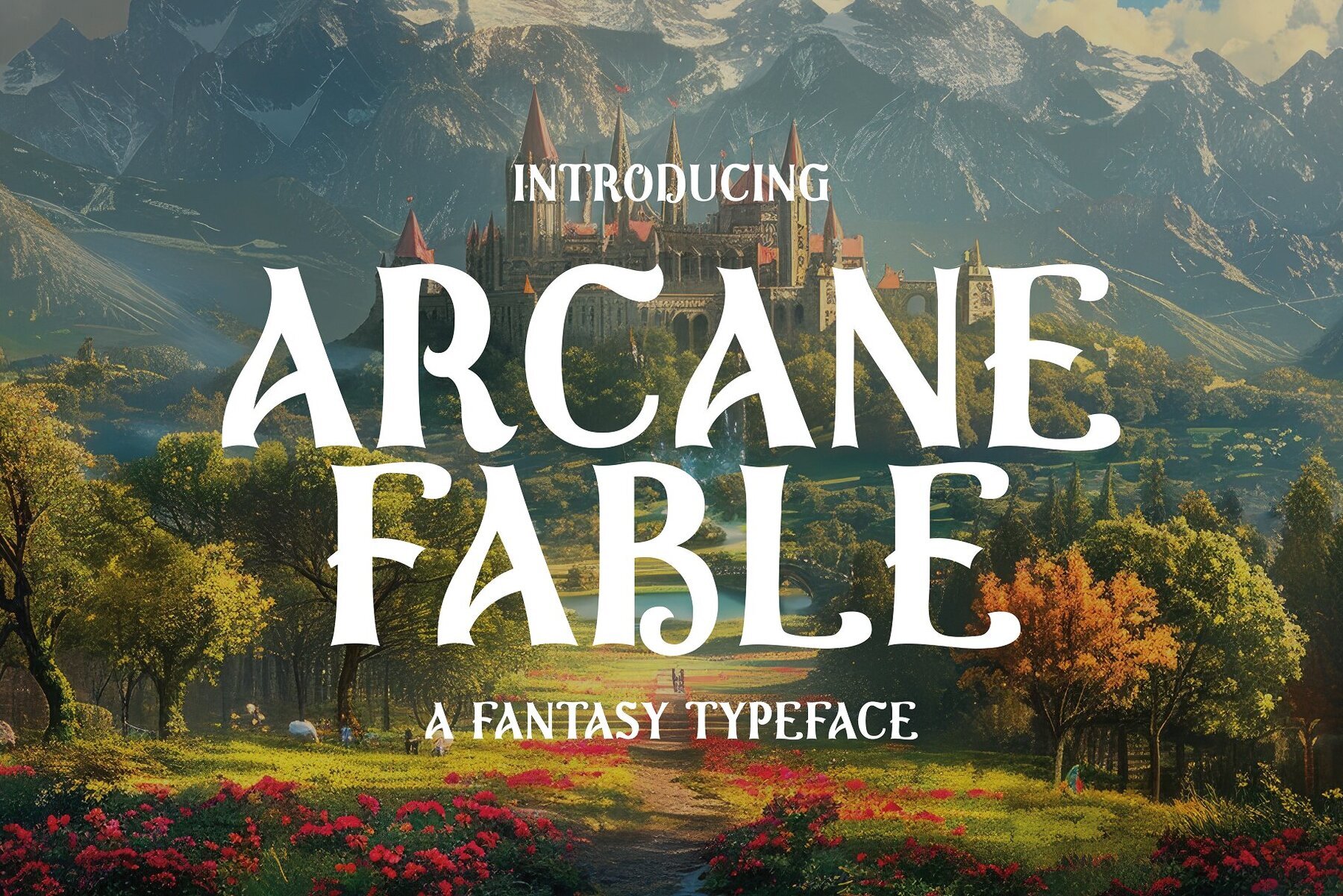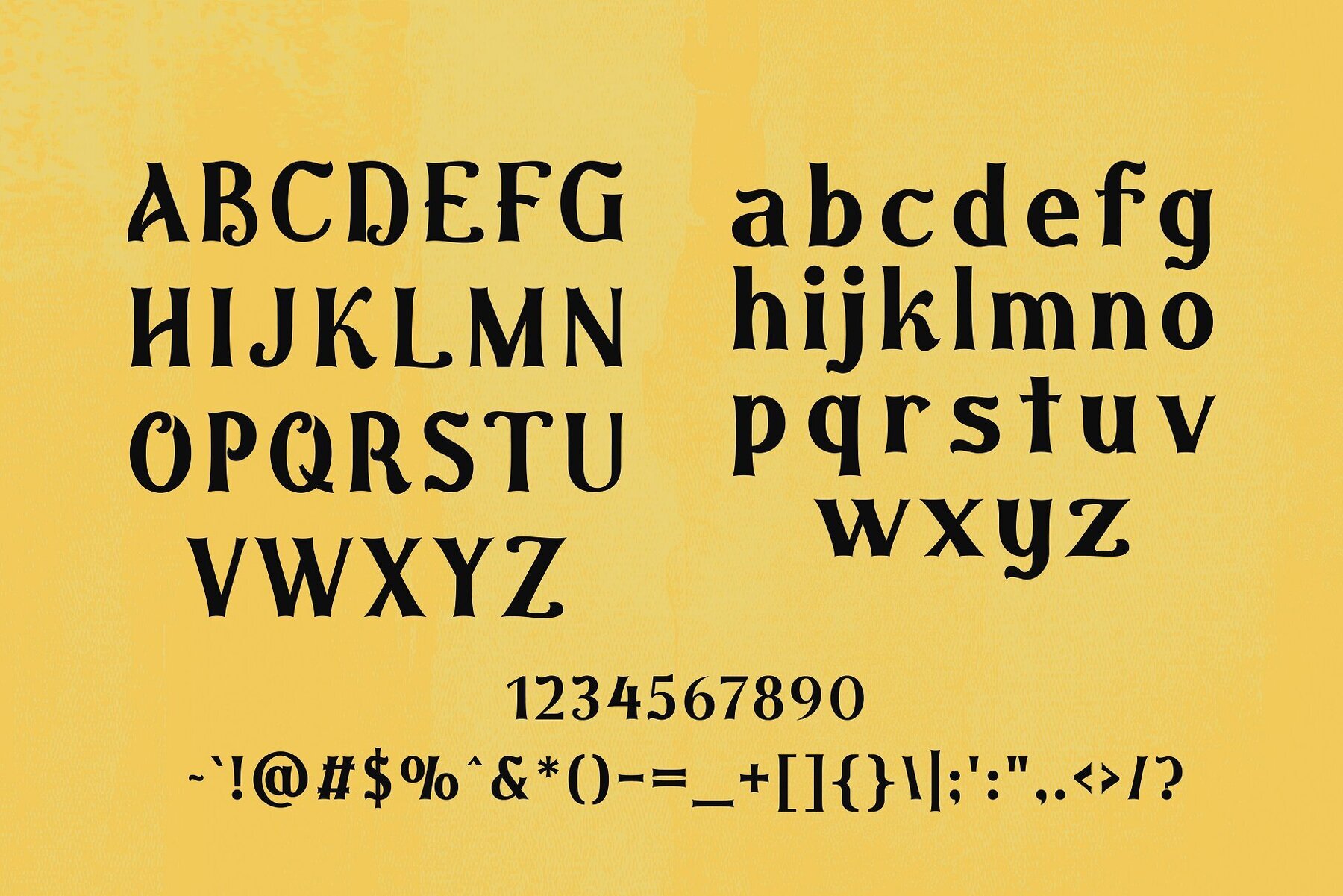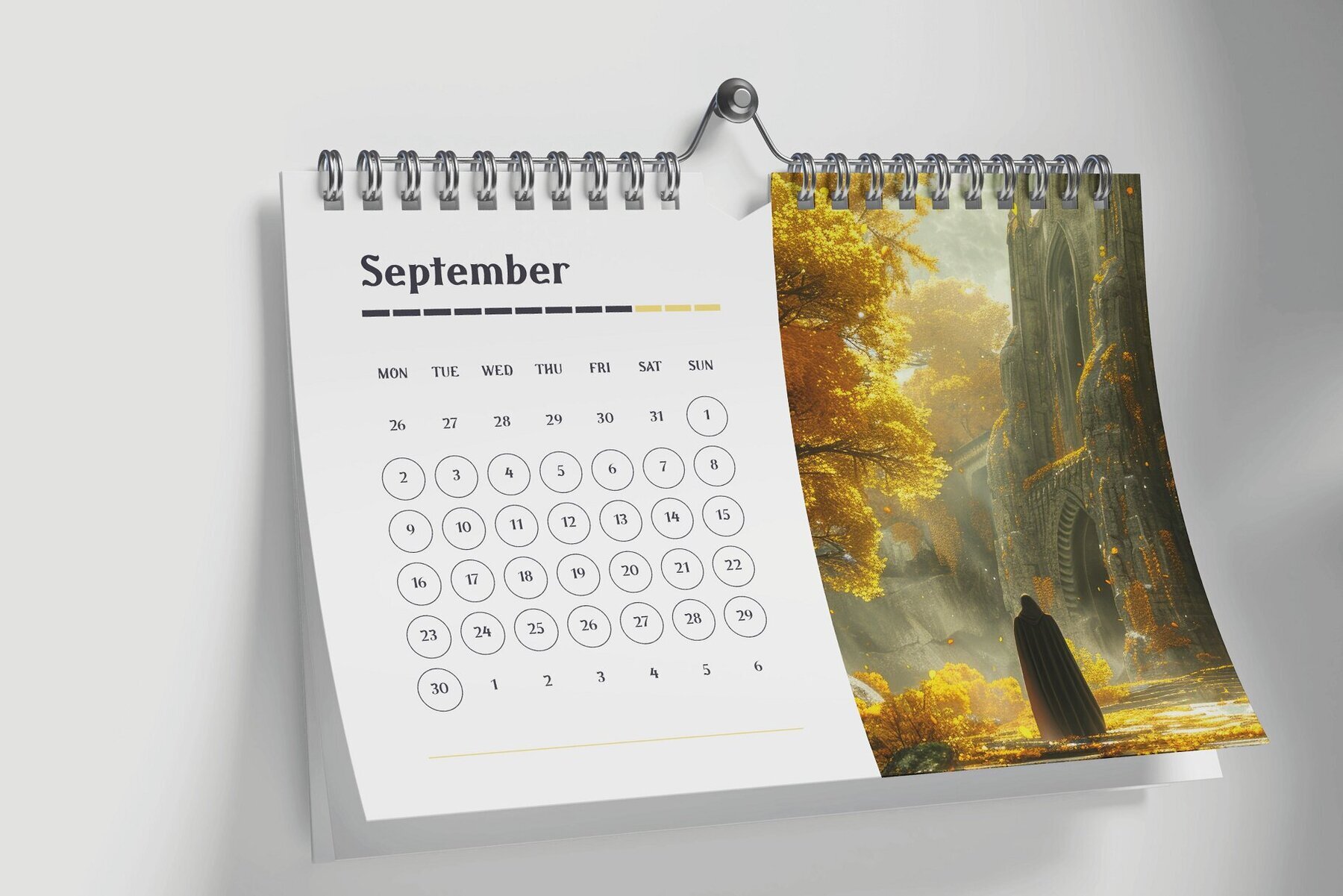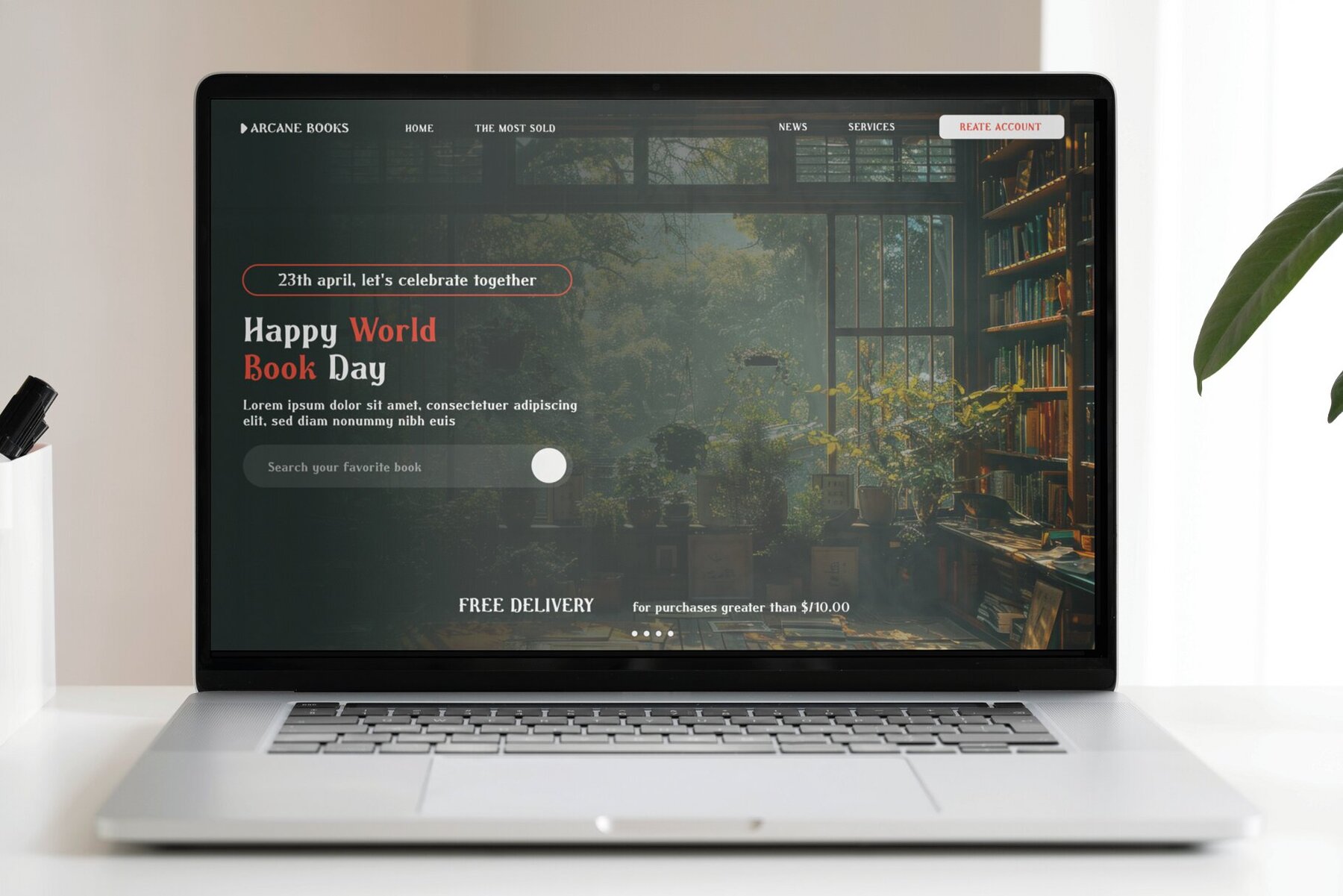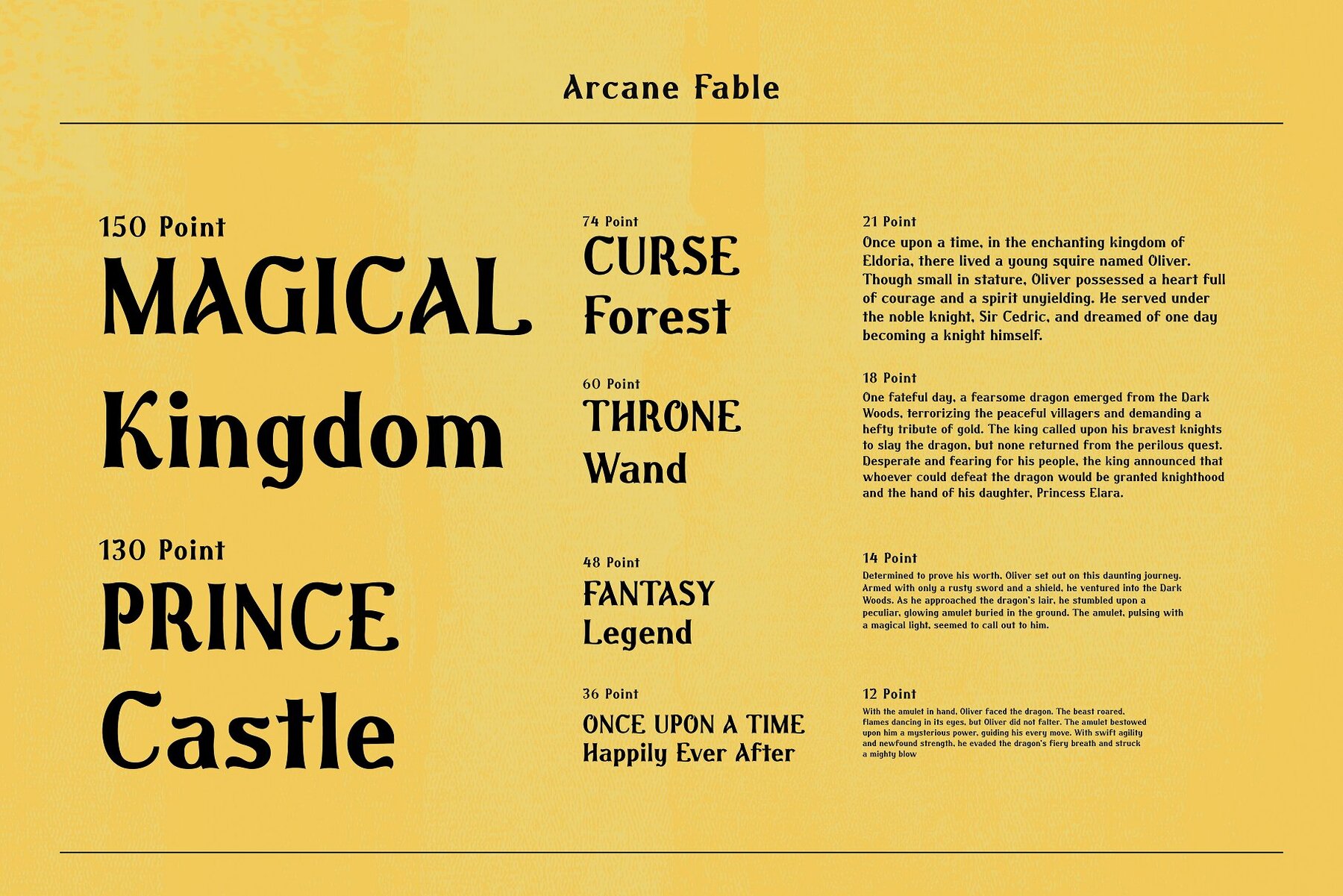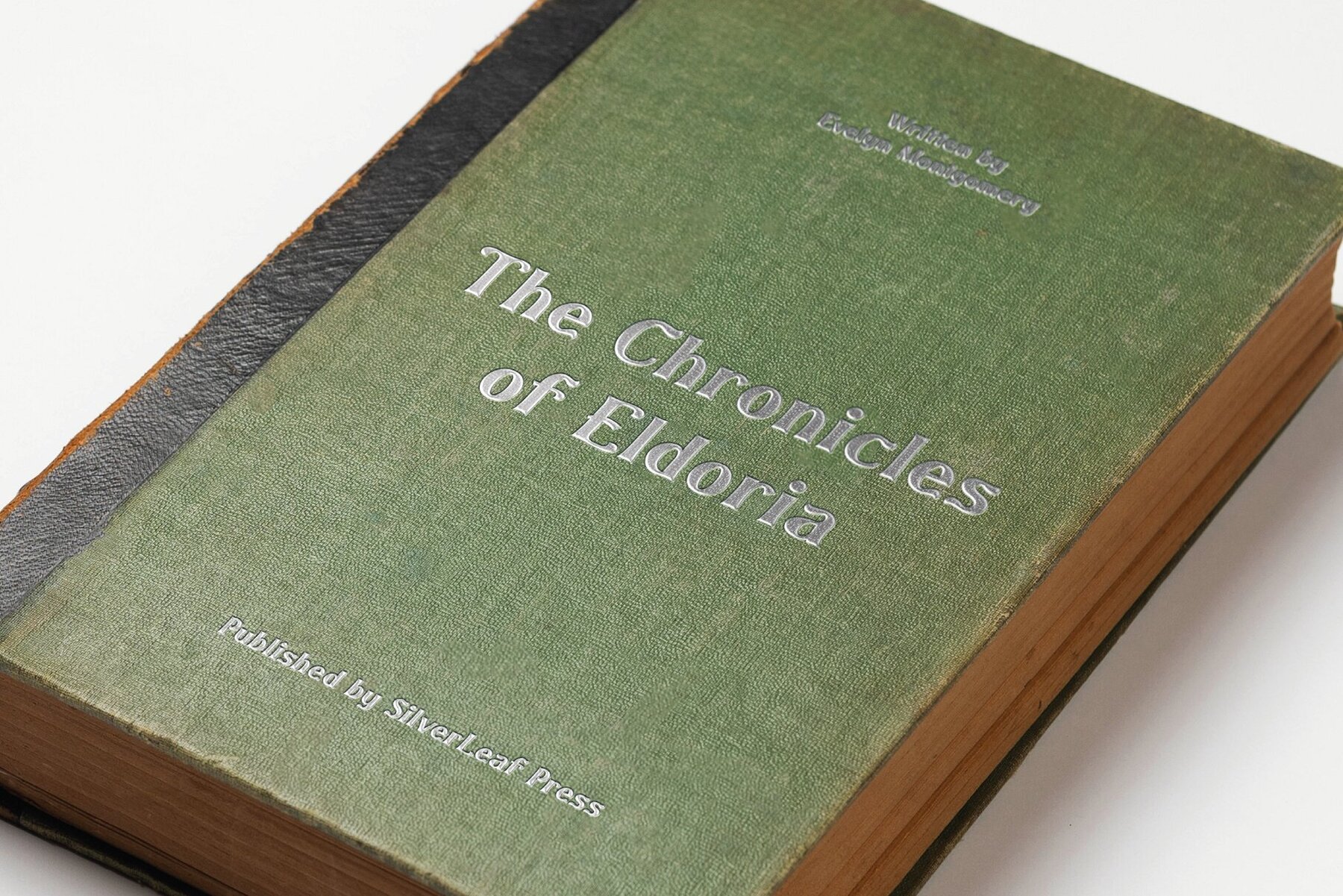
Arcane Fable Font
Arcane Fable
Arcane Fable is a fantasy-inspired typeface designed to infuse your stories and books with a captivating sense of wonder. This enchanting typeface captures the essence of magical realms, bringing an air of mystique and whimsy to your narratives. Its intricate letterforms echo the elegance of ancient manuscripts and the charm of storybook illustrations, transforming each character into a vessel of imagination and adventure. Imbued with ornate swirls and delicate details, Arcane Fable transports readers to fantastical worlds where anything is possible.
Ideal for book covers, chapter headings, and body text, Arcane Fable enhances the reading experience by adding a visual layer of enchantment. Its versatile design adapts to various fantasy genres, from dark and mysterious to light and whimsical, making it the perfect choice for epic sagas, fairy tales, and whimsical adventures. Captivate your readers with a typeface that speaks of enchanted forests, mythical creatures, and heroic quests. Arcane Fable adds a touch of magic to your storytelling, turning your words into gateways to otherworldly realms.